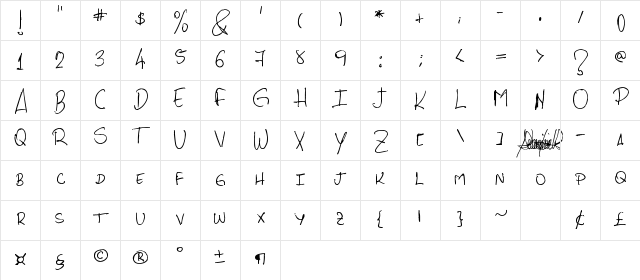
PHRocha Scrypt Regular Font Preview
PHRocha Scrypt Regular
Design Context for PHRocha Scrypt Typeface
PHRocha Scrypt is a composed and adaptable typeface that performs quietly and consistently across a wide range of design contexts.